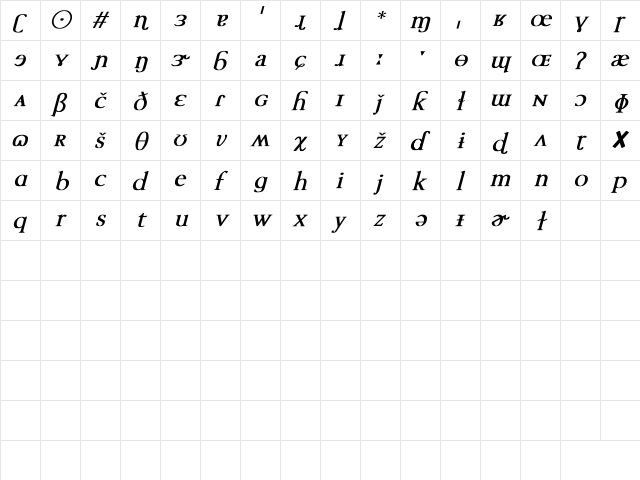
TechPhonetic bold italic Bold Italic Font Preview
Design Context for TechPhonetic bold italic Typeface
TechPhonetic bold italic channels digital-age aesthetics through its sharp, structured letterforms — ideal for brands that want to signal innovation. Its italic angle brings a sense of urgency and motion to the letterforms. The heavy weight commands attention and anchors typographic hierarchies.